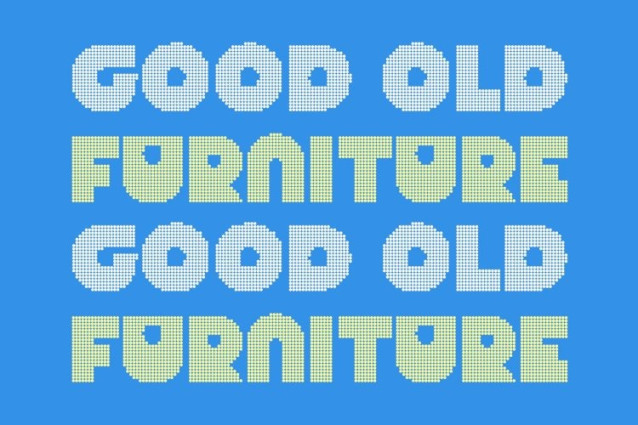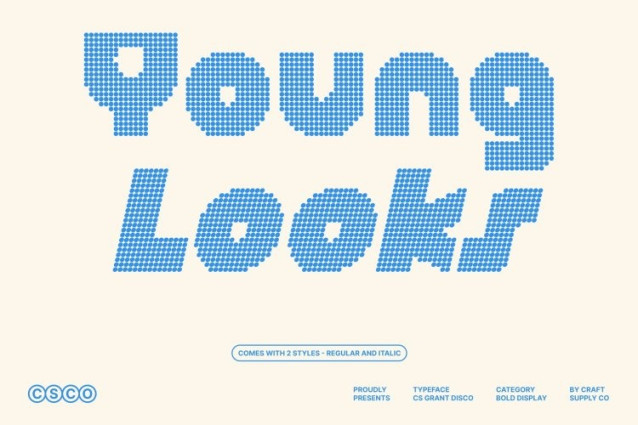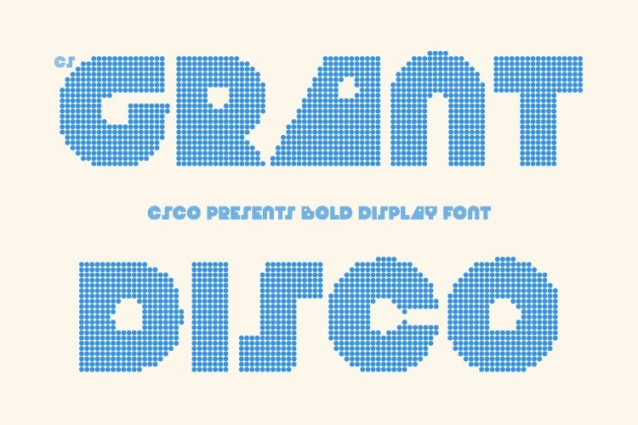
CS Grant Disco Font
CS Grant Disco Font This is a modern display typeface built from confident geometric foundations and bold construction, enhanced with a subtle disco-inspired edge. Its strong structure creates instant visual impact, while its experimental letterforms introduce rhythm, movement, and contemporary flair. The result is a typeface that feels fresh, daring, and visually magnetic.
Experimental Geometry with Distinct Personality
What sets this font apart is its unconventional use of geometry. Solid shapes are combined with unexpected cuts and proportions, giving each letter a unique personality. These creative details add originality and character without sacrificing balance or readability, making the font expressive yet controlled.
Fresh, Energetic, and Visually Striking
This font delivers a modern aesthetic that feels energetic and forward-thinking. Its bold presence and experimental design language push visual boundaries while remaining clean and sophisticated. The disco influence adds confidence and vibrancy, making every word feel dynamic and attention-grabbing.
Perfect for Magazines, Posters, and Bold Design Titles
Designed for display use, this font excels in magazine layouts, posters, branding, editorial headlines, and design-driven titles. Whether used as a dominant headline or a standout typographic element, it adds originality, modern appeal, and bold character to projects that demand freshness and impact.